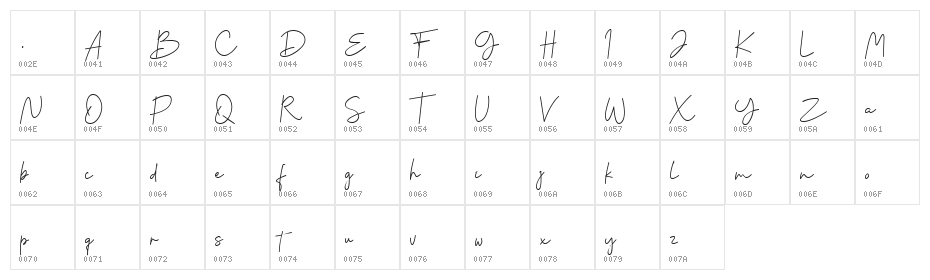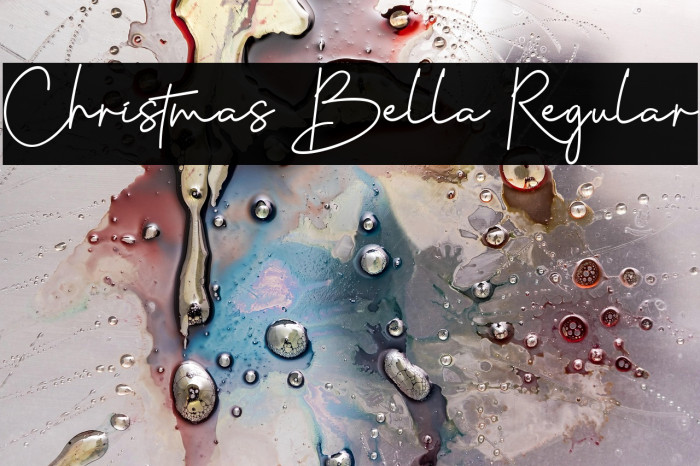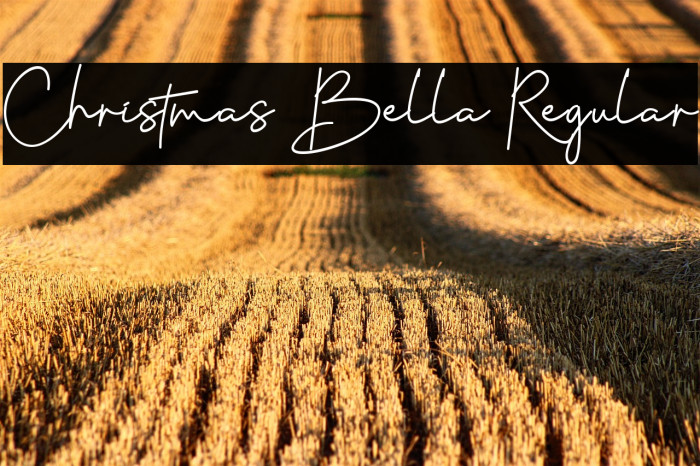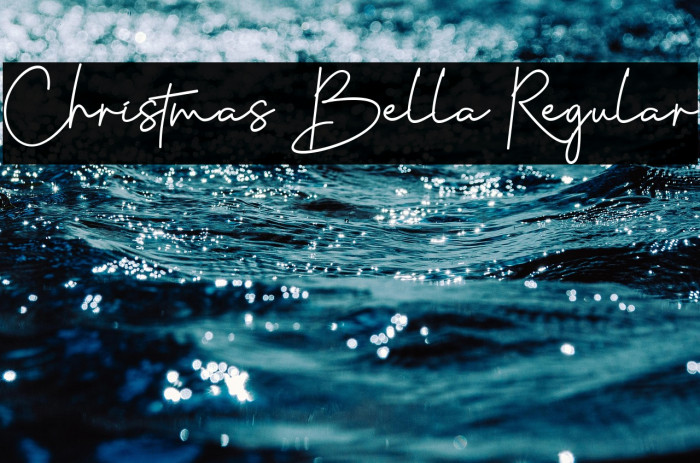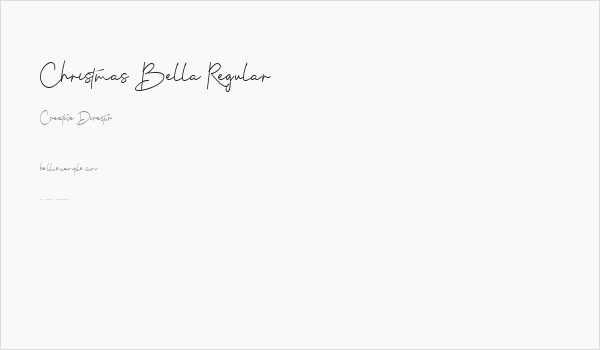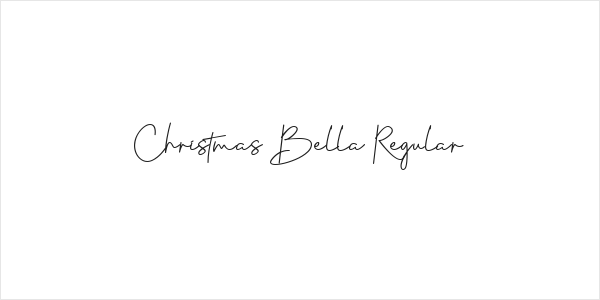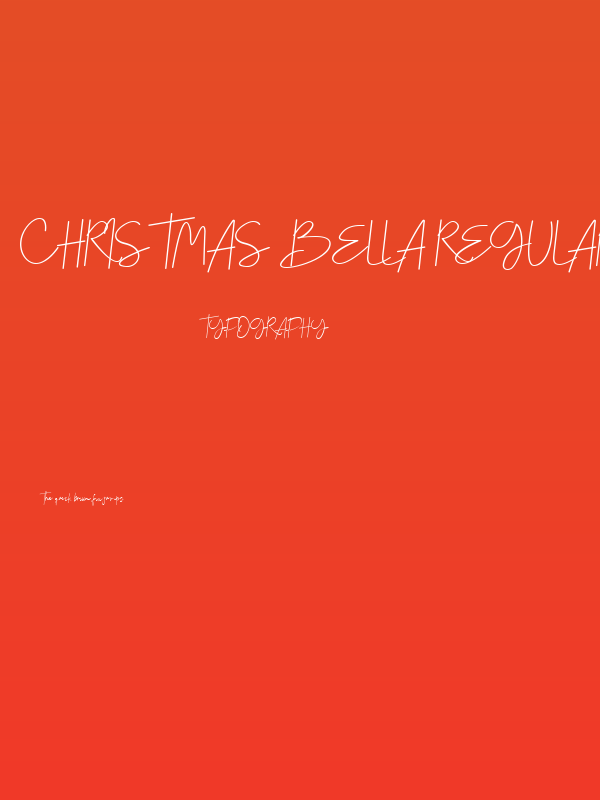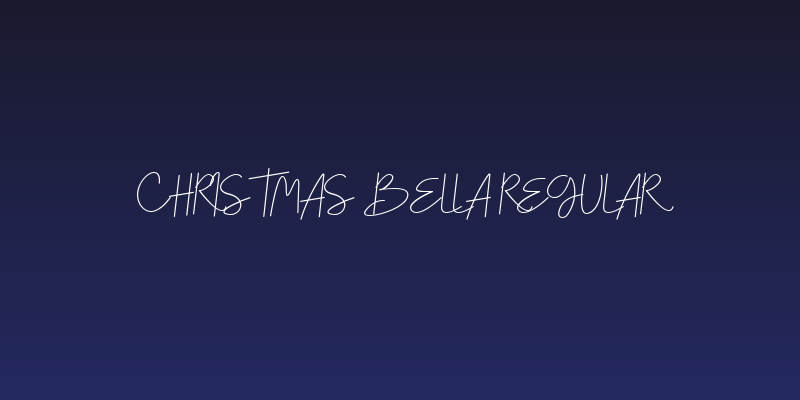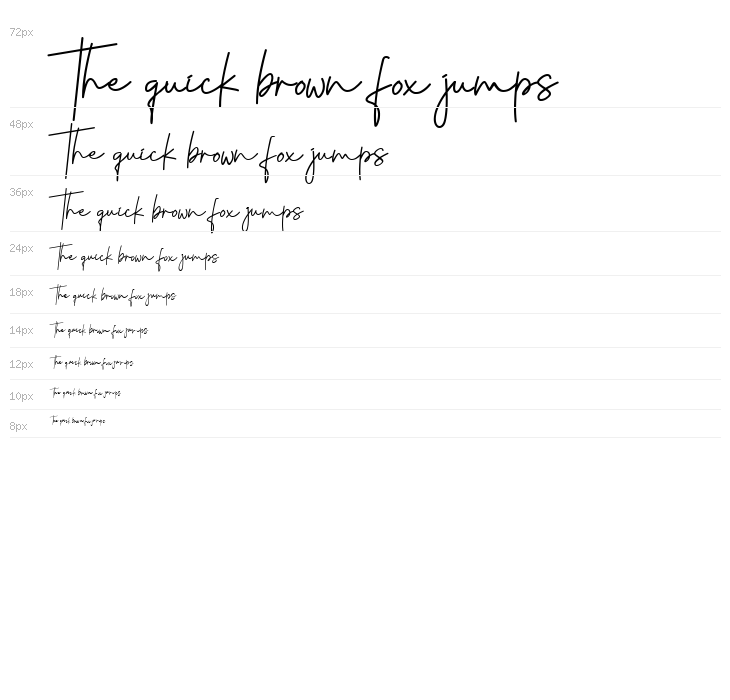
Christmas Bella Regular Font
Christmas Bella Regular Description
A flowing, handwritten script font with a casual and elegant style, featuring smooth, connected strokes and a playful character.
| Use Case | Logos, Headlines |
| Proposed Projects | Invitations, greeting cards, personal branding. |